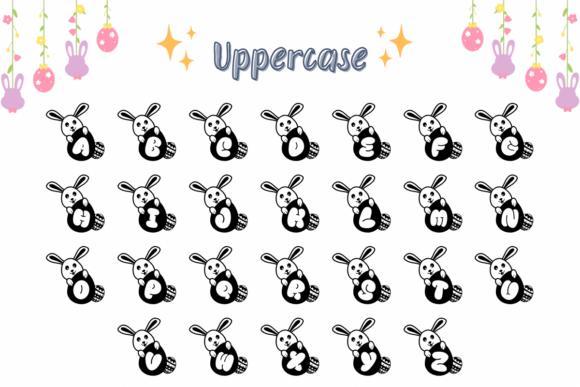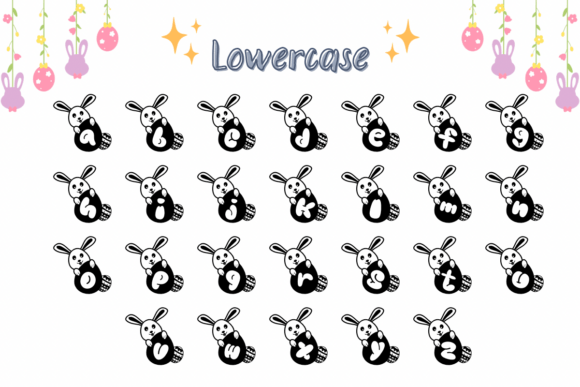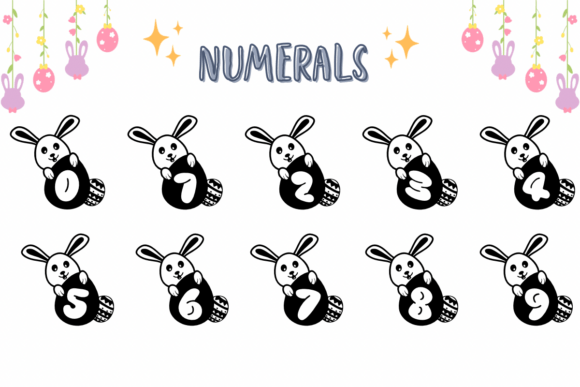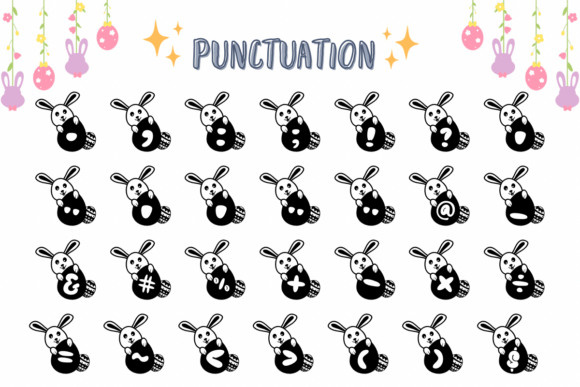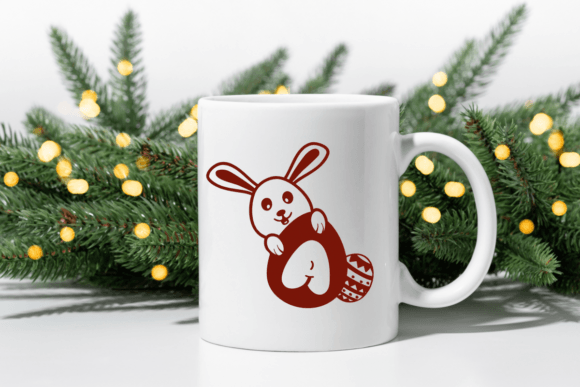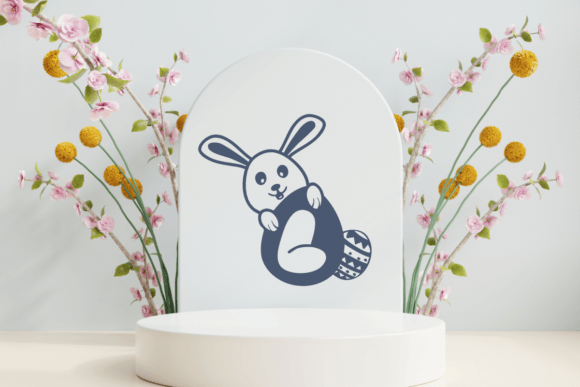
Celebrate Easter with a Hop: Introducing Bunny Easter Font
Ah, Easter design projects – so much fun! I still remember working on a last-minute Easter-themed poster for a client, scrambling to find the perfect font that would capture the playful spirit of the holiday. The brief was simple: create a design that would make both kids and adults smile. As I searched through font after font, I realized that most were either too serious or too cheesy. That’s when I stumbled upon Bunny Easter, a charming handwritten font that features adorable bunny characters holding letters. It was love at first sight! ✨
So, what makes Bunny Easter so special? Here are a few things that I absolutely adore:
- ✨ Playful and festive vibe that’s perfect for Easter-themed projects
- ✅ Adorable bunny characters that add a touch of whimsy to your designs
- ✅ Works beautifully for both digital and print projects
Of course, no font is perfect, and Bunny Easter has a few minor quirks:
- ⚠️ Some characters may not work well in very large or very small sizes
- 🤔 Limited language support (but it covers all the major languages)
The Designer Inspiration Behind Bunny Easter
Rumor has it that Bunny Easter was created by a designer who loves Easter and hates boring fonts. 😊 The designer wanted to create a font that would bring joy and whimsy to Easter-themed designs. With inspiration from childhood Easter memories and a passion for playful typography, Bunny Easter was born.
| Does Bunny Easter support OpenType features? | Yes, Bunny Easter supports OpenType features, including glyphs and stylistic alternates. |